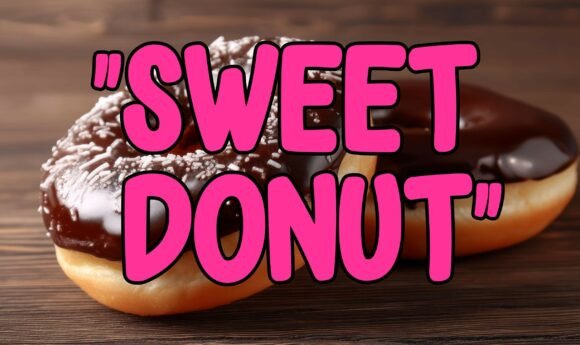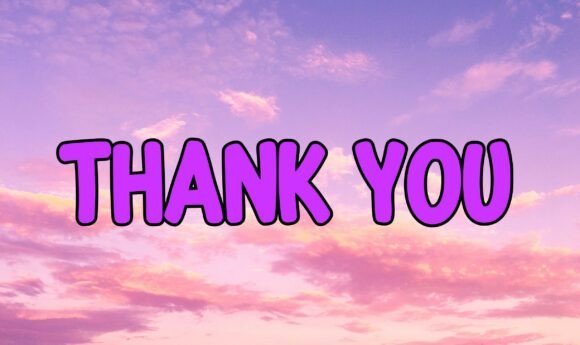
✨ Cute Simple Bubbly Font: Elevate Your Designs with a Playful and Charming Touch
Meet Cute Simple Bubbly, a delightful font that infuses a soft, cheerful essence into your creative projects. This playful and charming font boasts rounded shapes and smooth curves, perfectly encapsulating a cute, simple, and bubbly aesthetic that exudes friendliness and modernity. Designed to strike a balance between readability and personality, Cute Simple Bubbly is an ideal choice for a wide array of design endeavors.
Endless Possibilities for Creative Projects
Cute Simple Bubbly is a versatile font that lends itself beautifully to various creative applications. Whether you’re crafting logos and branding that need a friendly and approachable feel, designing social media graphics that stand out in a crowded feed, or creating invitations and greeting cards that convey warmth and joy, this font is sure to enhance your designs with its bubbly charm.
For packaging design, Cute Simple Bubbly offers a fresh and appealing look that can make products more attractive to customers, especially in the kids’ market or for items that benefit from a playful, youthful vibe. Additionally, its clean and minimal style makes it a great fit for stickers and planners, adding a touch of whimsy without compromising on clarity or functionality.
Key Features of Cute Simple Bubbly Font
- Uppercase & lowercase letters: A complete set of letters ensures you have all the characters you need for any project.
- Numbers & punctuation: Beyond just letters, this font includes numbers and essential punctuation marks for comprehensive usability.
- Smooth and rounded letterforms: The defining feature of Cute Simple Bubbly, these shapes contribute to its cute and bubbly aesthetic.
- Cute, simple, and bubbly style: The font’s design ethos, making it perfect for projects that require a friendly and modern look.
- Easy to read: Despite its playful nature, Cute Simple Bubbly maintains readability, ensuring your message is communicated clearly.
Why Choose Cute Simple Bubbly?
The unique blend of simplicity and bubbly charm makes Cute Simple Bubbly an excellent choice for designers and crafters looking to add a distinctive touch to their work. Its versatility means it can be used across a range of projects, from professional branding to personal crafts, without ever looking out of place.
Moreover, Cute Simple Bubbly’s design ensures it stands out without being overwhelming. In a world where designs can easily become cluttered or overly complicated, this font offers a refreshing simplicity that draws attention for all the right reasons.
Tips for Using Cute Simple Bubbly Effectively
To make the most of Cute Simple Bubbly, consider the following tips:
- Pair with Contrasting Fonts: For added visual interest, pair Cute Simple Bubbly with a more structured or serif font to create contrast.
- Experiment with Colors: This font looks great in a variety of colors, especially pastels or bright, poppy hues that enhance its bubbly feel.
- Use for Headers and Titles: Cute Simple Bubbly shines in headers and titles, adding a playful touch to your designs.
Cute Simple Bubbly is more than just a font; it’s a design element that can transform your projects with its playful and charming aesthetic. Its combination of simplicity, readability, and bubbly charm makes it an invaluable tool for designers and crafters alike. Whether you’re looking to add a touch of whimsy to your branding, create engaging social media content, or craft delightful invitations, Cute Simple Bubbly is sure to exceed your expectations.